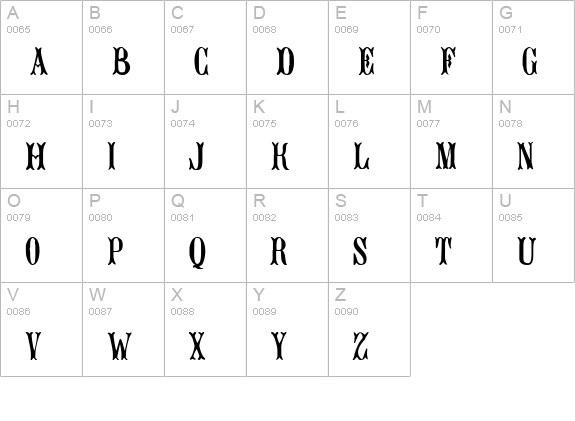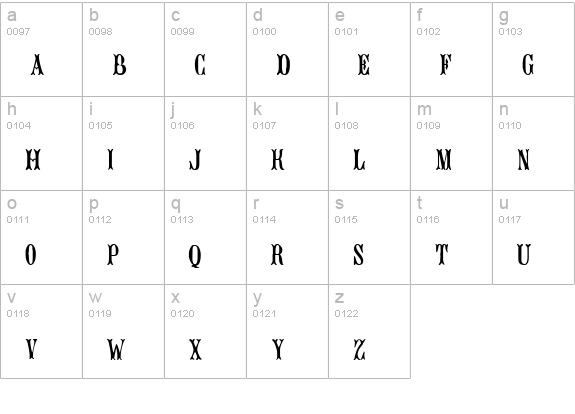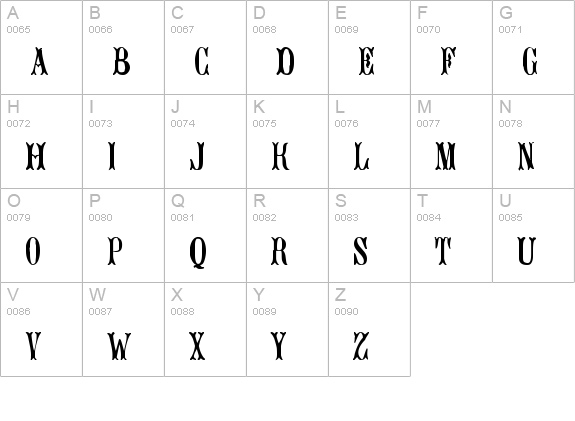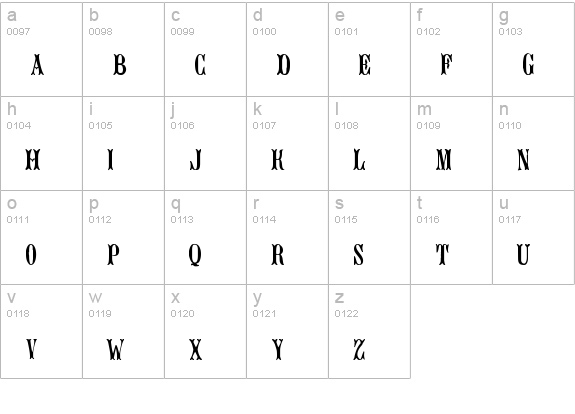
The Dino font is a playful and whimsical typeface that is perfect for adding a fun touch to your designs. With its bold and quirky characters, Dino font is sure to make any project stand out. Best of all, this font is available for free download at FontsMarket.com. Embrace the prehistoric charm of Dino font and bring a touch of nostalgia to your creations. Let your creativity roam free with this delightful and unique typeface.